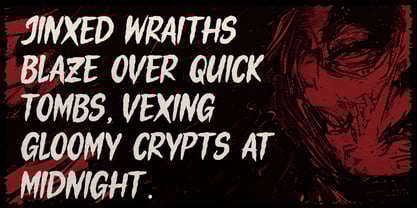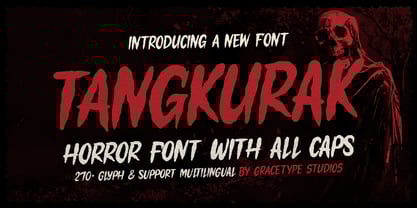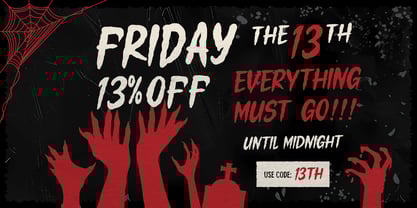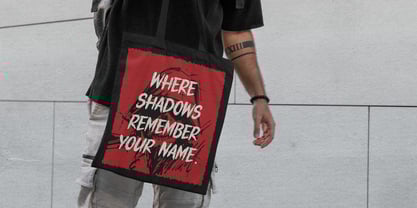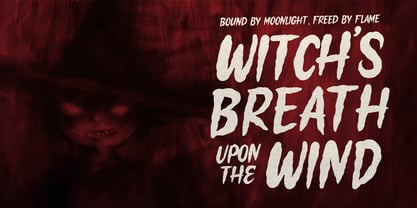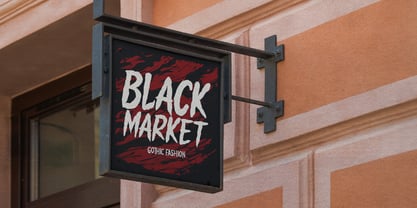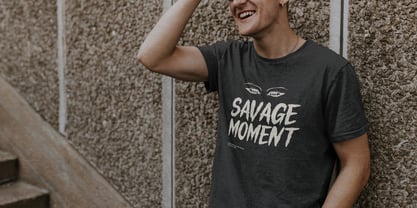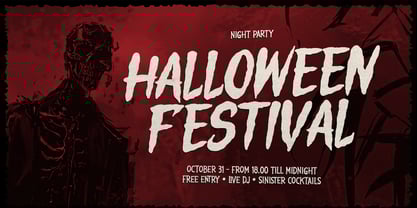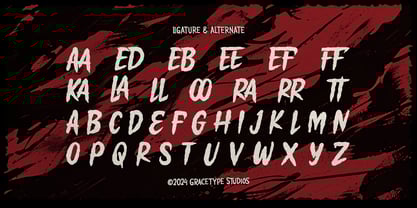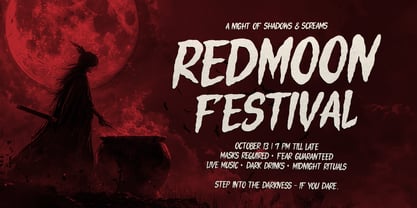
Tangkurak
by Tini Fitriani
The Tangkurak Font Family was designed by and published by Tini Fitriani. Tangkurak contains 2 styles and family package options. More about this family
Tangkurak | Horror Font, from Gracetypestudio, suitable for any projects such as: logos, branding projects, homeware designs, product packaging, mugs, quotes, posters, shopping bags, t-shirts, book covers, name card, invitation cards, greeting cards, label, photography, watermark, special events, and all your other lovely projects that need a Horror taste.